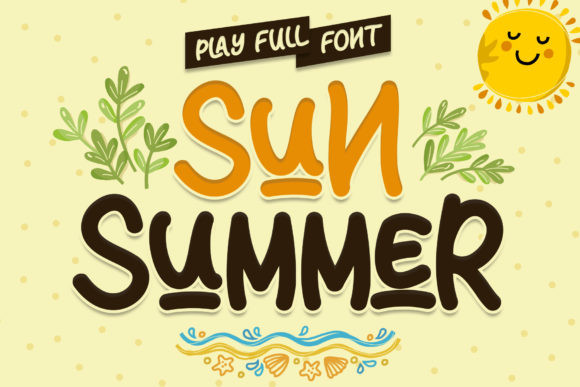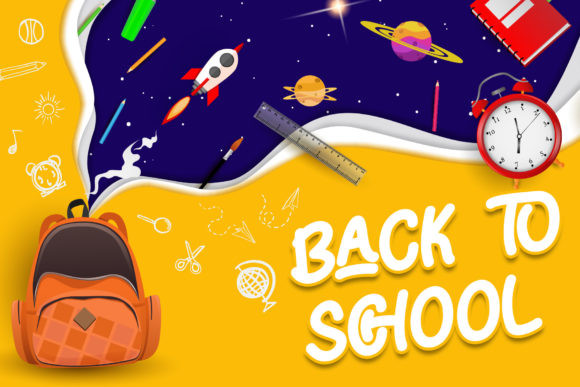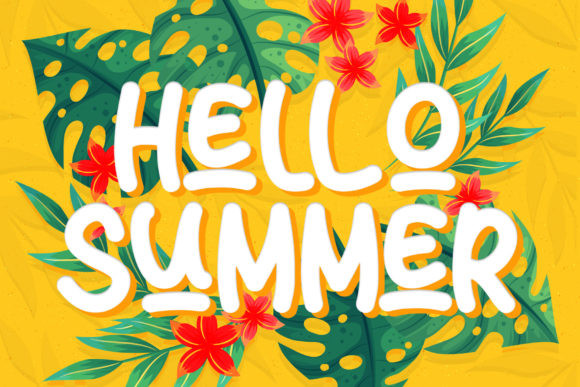
Sun Summer Font
Sun Summer is a cute and casual display font. It will add an incredibly joyful touch to your designs. Add this beautiful font to each of your creative ideas and notice how it makes them stand out!